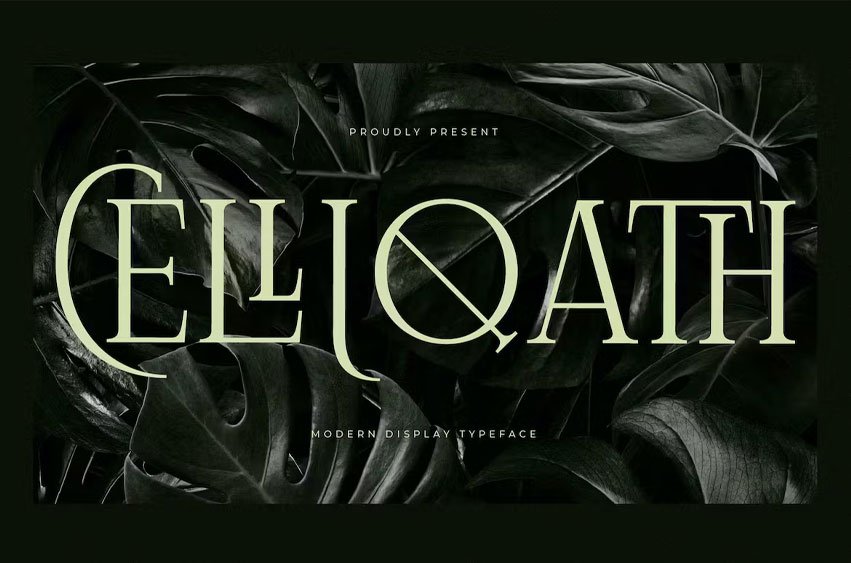
Celliqath Font is suitable to complement your digital and printed creative products. This font is perfect for posters, social media posts, branding, personal projects, etc.